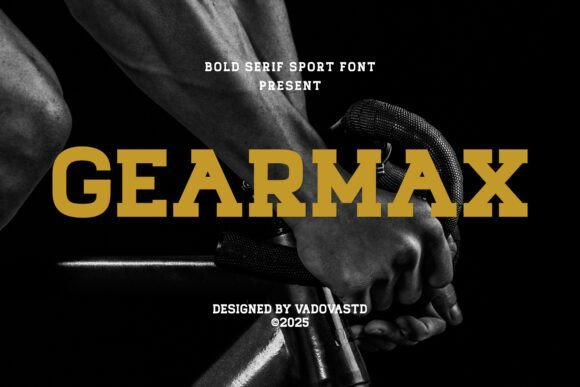
The Perfect Typography for a High-Octane Brand
You’re in the middle of a design project, and you need a font that screams energy, intensity, and a hint of rebelliousness. You’re scrolling through your favorite font library, and suddenly, you stumble upon Gearmax Font – a bold, heavy-hitting serif sport font that’s about to take your project to the next level.
Gearmax Font is specifically designed to evoke the feeling of extreme sports, high-intensity fitness, and automotive performance. With its massive, blocky slab-serif letterforms, this powerhouse typeface radiates industrial strength and competitive energy. As a designer, you’ll appreciate the rigid, architectural structure and “collegiate-pro” aesthetic that makes Gearmax Font a valuable addition to your design arsenal.
Gearmax Font Key Features
- Unique Characteristics: Gearmax Font features a unique blend of industrial and modern elements, with geometric shapes and clean lines that evoke a sense of innovation and progress.
Design Review: Gearmax Font
As a designer, I was excited to dive into Gearmax Font and see what it had to offer. Overall, I’d say it’s a solid choice for any project that needs a bold, industrial look.
- Unique aesthetic: Gearmax Font has a distinctive, mechanical feel that sets it apart from more common fonts.
- Wide range of styles: The font family includes multiple weights and styles, making it easy to find the perfect fit for your design.
- High legibility: Even at small sizes, Gearmax Font remains easy to read, making it a great choice for body text or headings.
- Limited language support: Gearmax Font may not support all languages or character sets, which could be a limitation for global designs.
- Not ideal for fine typography: The font’s bold, industrial look may not be suitable for projects that require delicate or intricate typography.
Overall, I’d say Gearmax Font is a great choice for designers who need a bold, eye-catching font for their projects. While it may have some limitations, its unique aesthetic and wide range of styles make it a versatile and effective option.
Tips for Getting the Most Out of Gearmax Font
Use Gearmax Font to add a futuristic and edgy touch to your designs. Pair it with bold colors and geometric shapes for a striking visual effect.
Gearmax Font is ideal for use in tech-related designs, such as infographics, brochures, and websites. It’s also a great choice for creating bold headlines and titles.